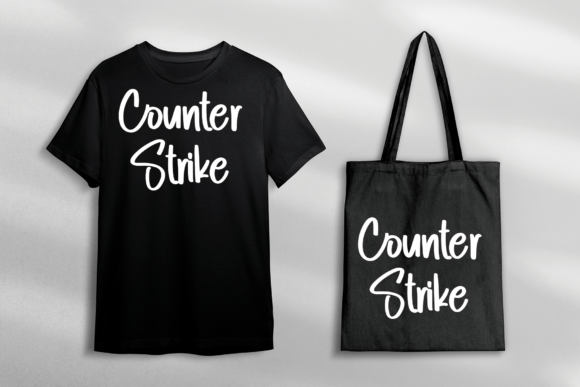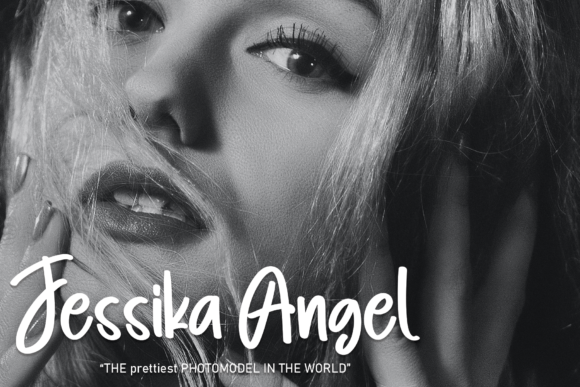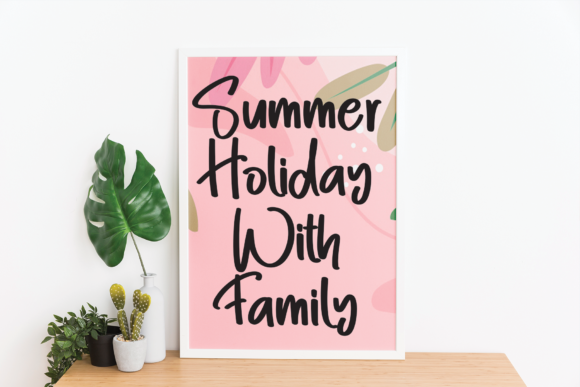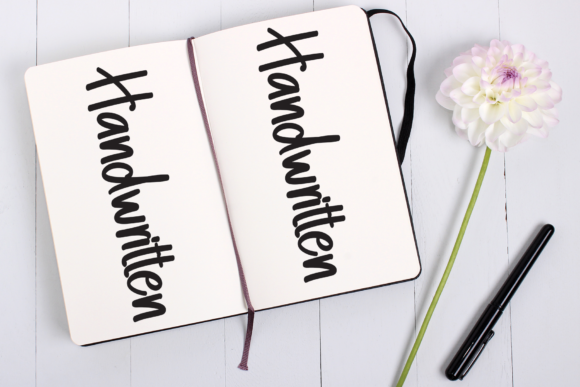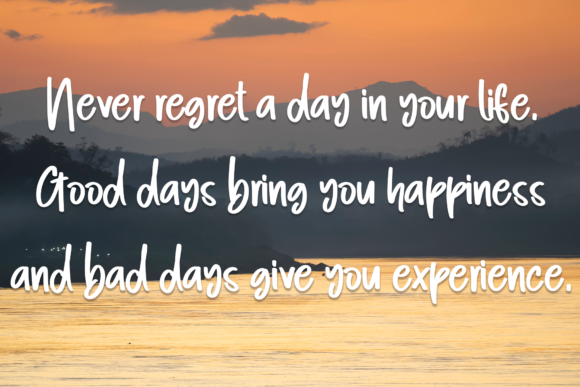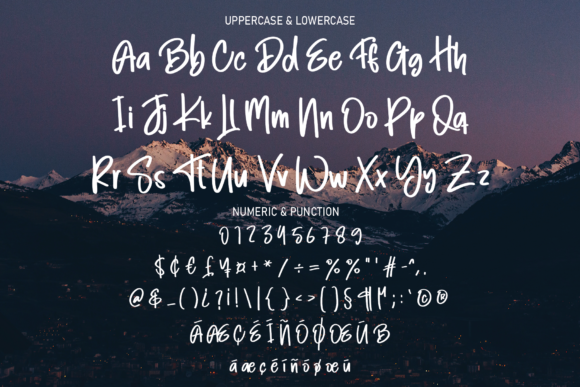
Cold Night Font: A Timeless and Versatile Handwritten Script
In the world of typography, few fonts have managed to capture the essence of simplicity and elegance as effectively as Cold Night Font. This classic and simple handwritten script has been making waves in the design community, and for good reason. With its random and free style, Cold Night Font is the perfect addition to any design project that requires a touch of personality and sophistication.
The Characteristics of Cold Night Font
Cold Night Font is a handwritten script that exudes a sense of effortless charm. Its classic and simple design makes it an excellent choice for a wide range of applications, from logotypes and headlines to corporate identity and brand identity. The font’s random and free style gives it a unique and organic feel, making it perfect for designers who want to add a touch of whimsy to their work.
One of the standout features of Cold Night Font is its versatility. This font is suitable for a wide range of industries and applications, including:
- Logotype and headline font
- Corporate identity and brand identity
- Apparel industry
- Music and movie titles
- Game design
- Magazines and books
- Comics and cartoons
- YouTube and Instagram
- Websites and blogs
Whether you’re working on a personal project or a client’s brief, Cold Night Font is an excellent choice for any design project that requires a touch of elegance and sophistication.
Why Designers and Crafters Love Cold Night Font
So, what makes Cold Night Font so popular among designers and crafters? Here are just a few reasons:
- Ease of use: Cold Night Font is incredibly easy to read and use, making it perfect for body text and headlines.
- Flexibility: The font’s random and free style makes it suitable for a wide range of applications and industries.
- Uniqueness: Cold Night Font has a unique and distinctive feel that sets it apart from other fonts.
- Timelessness: The font’s classic design ensures that it will remain relevant for years to come.
Tips for Using Cold Night Font
To get the most out of Cold Night Font, here are a few tips to keep in mind:
- Use it sparingly: Cold Night Font is a statement font, so use it sparingly to add emphasis and personality to your design.
- Experiment with colors: The font’s classic design looks great in a wide range of colors, so don’t be afraid to experiment and find the perfect hue for your project.
- Pair it with other fonts: Cold Night Font pairs well with a wide range of fonts, so don’t be afraid to get creative and find the perfect combination for your project.
In conclusion, Cold Night Font is a timeless and versatile handwritten script that is perfect for designers and crafters who want to add a touch of elegance and sophistication to their work. With its classic and simple design, random and free style, and wide range of applications, Cold Night Font is an excellent choice for any design project. Whether you’re working on a logotype, headline font, or corporate identity, Cold Night Font is sure to impress.